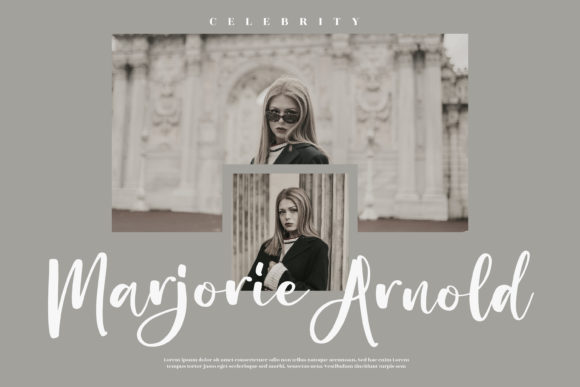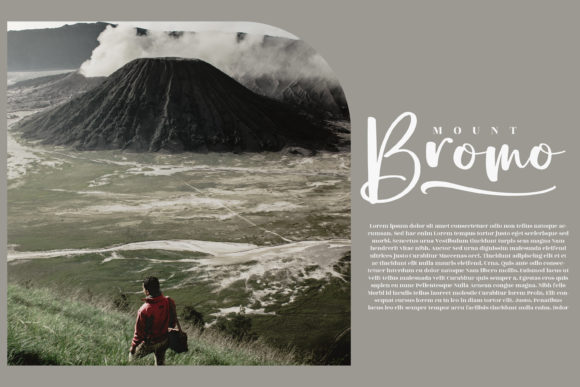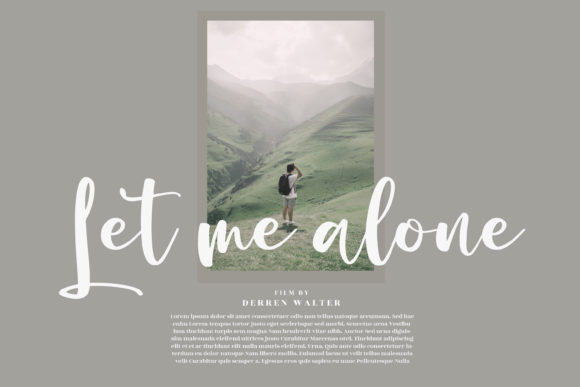
Discover the Whimsical World of Beauty Amalia Font
Enter the charming Beauty Amalia Font, a lovely script font designed to add a touch of whimsy to your designs. With its playful characters and PUA encoding, Beauty Amalia Font makes it easy to access all the glyphs and swashes you need to create stunning typography. Whether you’re working on a wedding invitation, a children’s book, or a social media campaign, this font is sure to bring a smile to your clients’ faces.
So why is Beauty Amalia Font a valuable addition to your design toolkit? With its versatility and ease of use, it’s the perfect choice for designers who want to add a little extra beauty to their projects.
- Font Family: Beauty Amalia Font is a beautiful script font, ideal for creative projects.
- Unique Characteristics: Beauty Amalia Font features elegant, cursive lines, and intricate details, perfect for creating eye-catching headings and titles.
Beauty Amalia Font Review
Overall, I think Beauty Amalia is a beautiful and elegant script font, perfect for adding a touch of sophistication to your designs. ✨ It has a soft, flowing feel that makes it ideal for creating a romantic or vintage atmosphere. The font is highly customizable, with a wide range of weights and styles to choose from, making it suitable for a variety of projects.
- ✨ Highly customizable with a range of weights and styles
- ✨ Elegant and sophisticated design
- ✨ Perfect for creating a romantic or vintage atmosphere
However, there are a few limitations to consider. ⚠️ The font may not be the best choice for titles or headings, as it can be difficult to read in smaller sizes. Additionally, the font may not be as bold or striking as some other script fonts on the market.
- ⚠️ May not be suitable for titles or headings due to readability issues
- ⚠️ May not be as bold or striking as other script fonts
Overall, I would recommend Beauty Amalia to designers who are looking for a beautiful and elegant script font to add a touch of sophistication to their designs. While it may have some limitations, it is a great choice for a variety of projects.
The Beauty Amalia Font is ideal for creating elegant and sophisticated designs, such as:
– Wedding invitations
– Branding materials
– Luxury product packaging
– High-end marketing materials